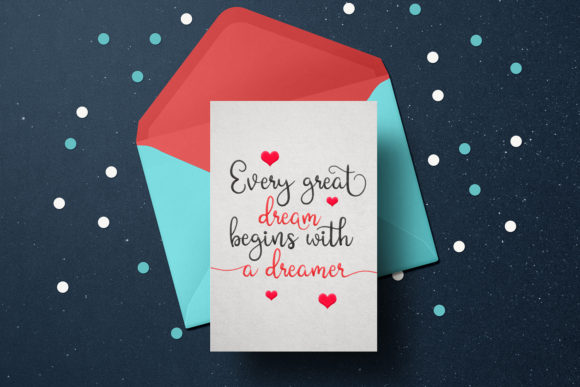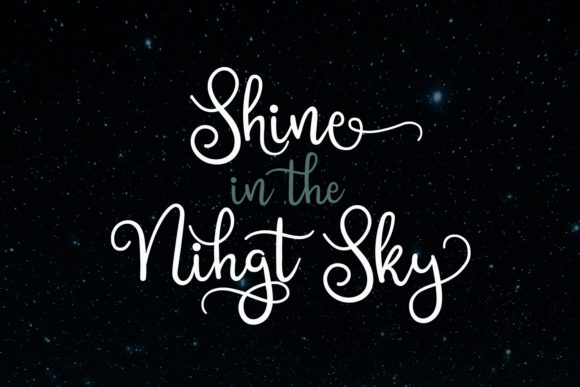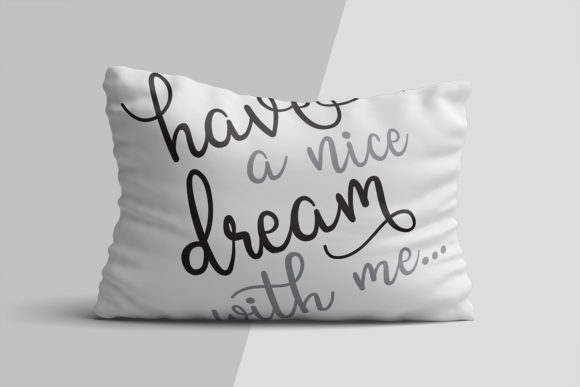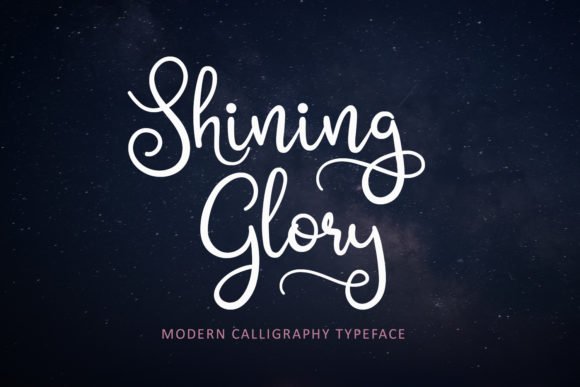
Introduction to Shining Glory Font
Shining Glory is a new modern & fresh calligraphy script with natural style.
This stunning font will make any design look elegant, natural and stylish .
Key Features of Shining Glory Font